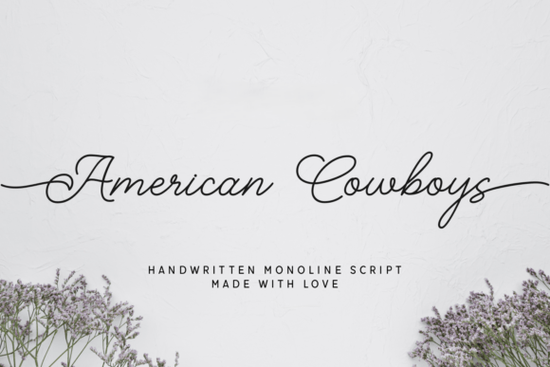
If you're looking for a script font that feels both personal and polished, the American Cowboys Font might be exactly what your next project needs. Designed with smooth, flowing strokes and a handwritten monoline style, it brings together rustic warmth and refined elegance ideal for everything from wedding stationery to boutique branding.
Unlike overly ornate calligraphy fonts, American Cowboys keeps its lines clean and consistent, making it highly legible while still feeling handcrafted. This balance is especially useful if you’re creating designs for clients who want something distinctive but not distracting.
What kinds of projects work best with this font?
Because of its graceful curves and understated charm, American Cowboys shines in contexts where tone matters as much as typography:
- Wedding invitations and save-the-dates – Its romantic flow pairs beautifully with floral motifs or minimalist layouts.
- Small business logos and packaging – Think artisanal coffee roasters, handmade soap brands, or boutique boutiques wanting a touch of personality without looking cluttered.
- Social media quotes and graphics – The font’s even weight ensures readability even at smaller sizes on mobile screens.
- Print-on-demand products – From mugs to tote bags, it adds a custom, human feel without overwhelming the design.
If you often pair fonts, consider combining American Cowboys with a clean sans-serif for contrast. You’ll maintain visual interest while keeping your message clear.
How does it compare to other handwritten script fonts?
Not all script fonts are created equal. Some lean too casual; others feel stiff or dated. American Cowboys sits comfortably in the middle friendly but professional, expressive but controlled.
For example, if you’ve used the Sister Font, you’ll notice it has a bouncier, more playful rhythm. In contrast, American Cowboys offers smoother transitions and a calmer presence. Similarly, while the Elemental Calligraphy Font leans into dramatic thick-and-thin variation, American Cowboys uses a monoline approach, giving it a modern, versatile edge.
Other elegant alternatives worth exploring include the Honeymoon Font, which has delicate swashes perfect for formal events, and the Sacred Notes Duo Font, ideal if you need both regular and textured versions in one package. Each serves a slightly different mood but American Cowboys stands out for its everyday usability with a hint of sophistication.
Is it beginner-friendly for non-designers?
Absolutely. Because it’s a monoline font (meaning all strokes are roughly the same thickness), it’s easier to work with than traditional calligraphy styles that require careful spacing or ligature management. Most design platforms like Canva, Adobe Express, or Silhouette Studio handle it smoothly, and you won’t need special software to get good results.
Just remember: like any script font, avoid using it in all caps or for long paragraphs. It works best for headlines, short phrases, names, or accent text.
Tips for getting the most out of this font
To make your designs feel intentional and balanced:
- Give it breathing room. Script fonts need space to shine avoid cramming letters or pairing with busy backgrounds.
- Use real words, not just letterforms. Type out full names or phrases to see how connections flow naturally.
- Test print sizes. If you’re using it for physical products, check how it looks at actual scale some fine details may disappear on tiny labels.
- Pair thoughtfully. A neutral sans-serif like Montserrat or Lato creates harmony without competing.
Whether you’re designing a wedding suite, launching a new product line, or just adding flair to your Instagram stories, American Cowboys offers a reliable blend of character and clarity. It doesn’t shout it whispers with confidence.